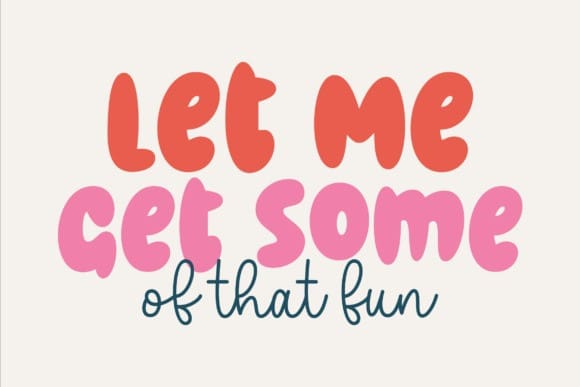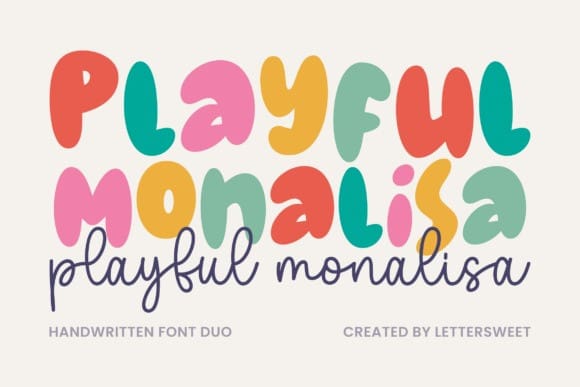
Playful Monalisa Font
Playful Monalisa Font is a fun and lively handwritten font duo designed to bring joy and creativity to your projects. The bold, bubbly uppercase letters are perfect for eye-catching headlines, while the elegant script adds a charming personal touch. Whether you’re designing children’s books, playful branding, greeting cards, or social media posts, Playful Monalisa will make your text stand out with its cheerful and whimsical aesthetic.